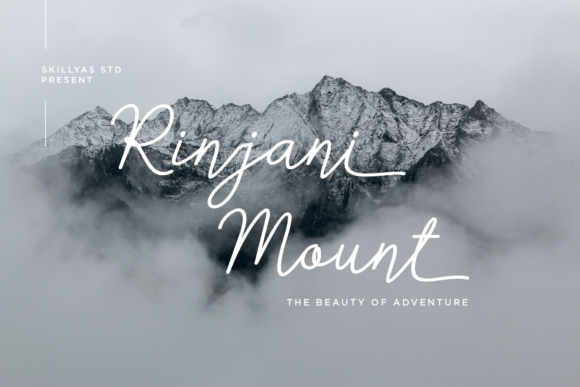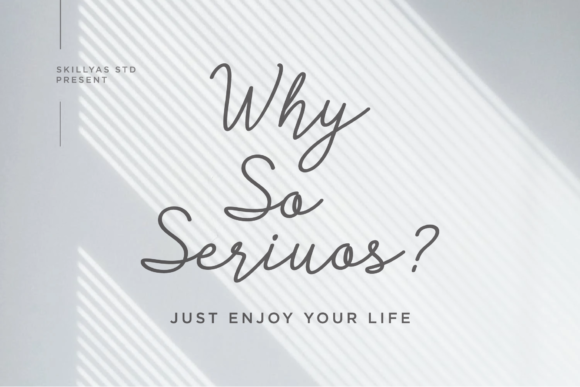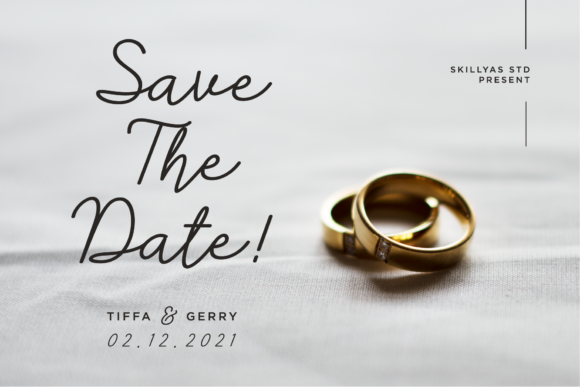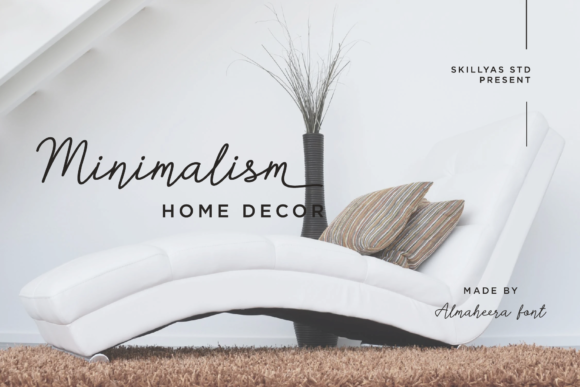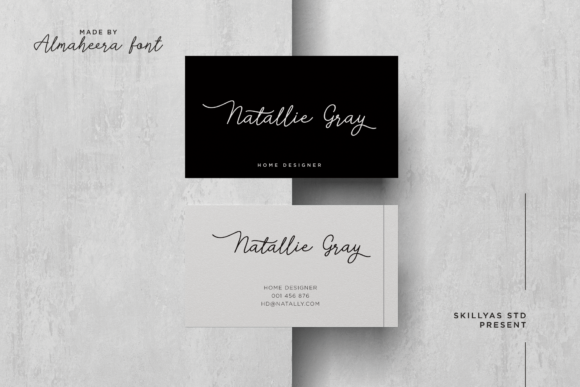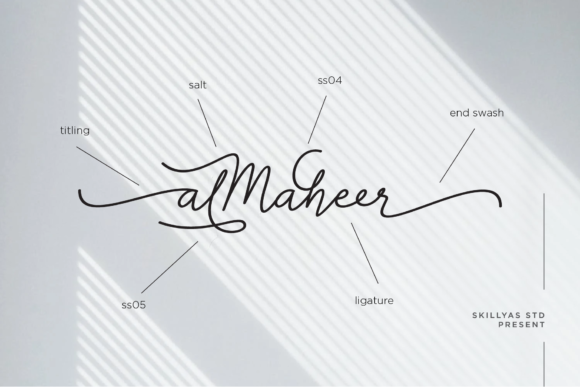
Introducing Almaheera Font: Elevate Your Designs with Luxury and Elegance
In the world of typography, fonts play a crucial role in conveying the tone and aesthetic of a design project. For designers and crafters seeking to add a touch of luxury and sophistication to their creations, Almaheera Font is an exceptional choice. This beautiful light handwritten font boasts a unique feel and a stunning impact, making it perfect for a wide range of design applications.
The Unique Charm of Almaheera Font
Almaheera Font stands out with its elegant, light-handed writing style that exudes refinement and poise. Its distinctive characters and flowing lines are meticulously crafted to bring a sense of luxury and exclusivity to any design project. Whether you’re working on a branding campaign, a packaging design, or a digital project, Almaheera Font is sure to leave a lasting impression.
PUA Encoding for Easy Access to Glyphs and Ligatures
One of the key features that sets Almaheera Font apart is its PUA (Private Use Area) encoding. This means that users can easily access all the amazing glyphs and ligatures that the font has to offer. PUA encoding allows designers to unlock the full potential of the font, enabling them to create complex and visually appealing designs with ease. With Almaheera Font, you can effortlessly incorporate intricate details and unique elements into your projects, taking them to the next level.
The versatility of Almaheera Font makes it an excellent addition to any designer’s toolkit. Its applications are vast and varied, including:
- Branding and Logo Design: Create memorable and impactful logos that capture the essence of your brand.
- Packaging Design: Elevate your product packaging with sophisticated and eye-catching typography.
- Digital Design: Enhance your website, social media graphics, and digital advertisements with elegant and professional text.
- Stationery and Print Design: Add a touch of luxury to your business cards, invitations, and other print materials.
Why Choose Almaheera Font?
With so many fonts available, why should Almaheera Font be your go-to choice? Here are a few compelling reasons:
- Unique Aesthetic: Almaheera Font offers a distinctive look that will set your designs apart from the competition.
- Ease of Use: Thanks to PUA encoding, accessing and using the font’s features is straightforward and hassle-free.
- High Versatility: Suitable for a wide range of design projects, Almaheera Font is a versatile asset for any designer.
- Luxury and Sophistication: Bring a sense of high-end quality to your designs with this elegant and refined font.
Almaheera Font is more than just a typeface; it’s a design statement. Its unique blend of elegance, luxury, and versatility makes it an indispensable tool for designers and crafters aiming to create stunning and impactful designs. By incorporating Almaheera Font into your projects, you’ll not only elevate the aesthetic quality but also ensure that your designs stand out in a crowded marketplace. Experience the difference that a high-quality, beautifully crafted font can make in your design work.
With Almaheera Font at your disposal, you’re just a step away from transforming your designs and making a lasting impression on your audience. Embrace the elegance, luxury, and versatility that this exceptional font has to offer, and watch your design projects soar to new heights.